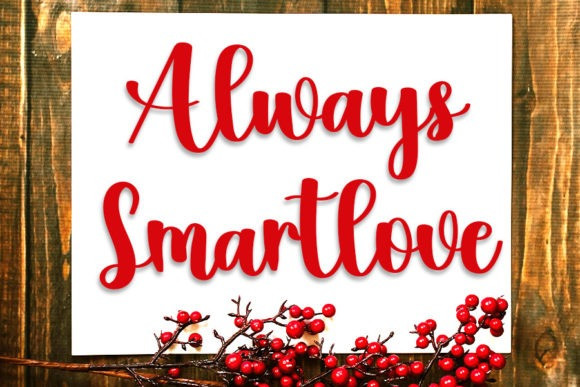
Anitha Font
Anitha Font by FreshTypeINK 30,178 downloads
Anitha Font
Anitha Script Font is a flowing and graceful script font. Fall for its ravishing style and use it to create gorgeous wedding invitations, beautiful stationary art, eye-catching social media posts, and much more!